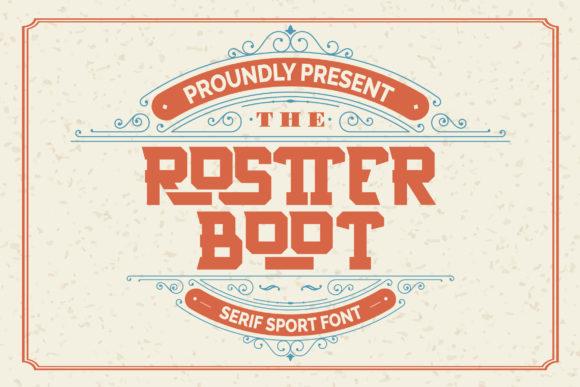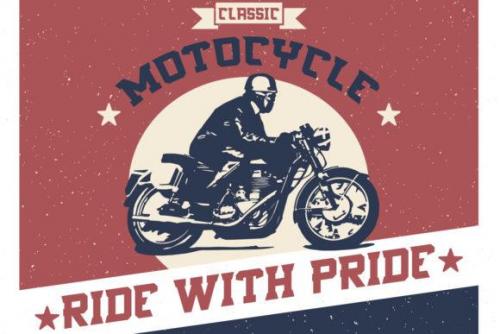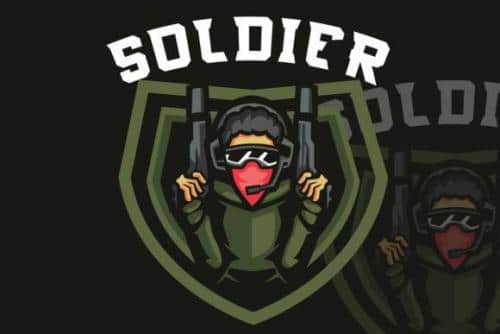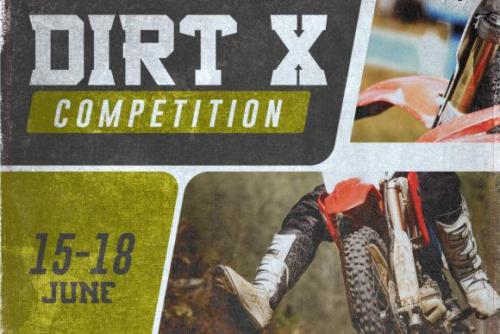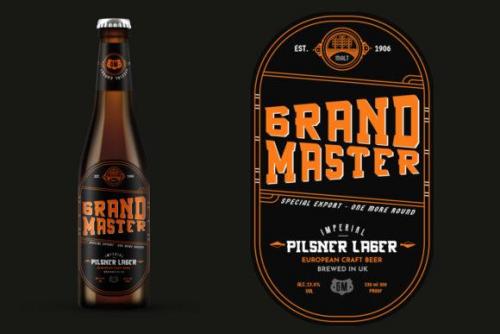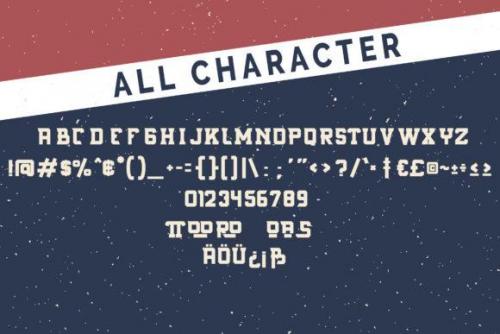
Rostter Boot Serif Sport Font with a calligraphy style, So beautiful on invitation like greeting cards, branding materials, business cards, quotes, posters, and more! The alternative characters were divided into several Open Type features such as Stylistic Sets, Stylistic Alternates, Contextual Alternate, SWASH and Ligature.